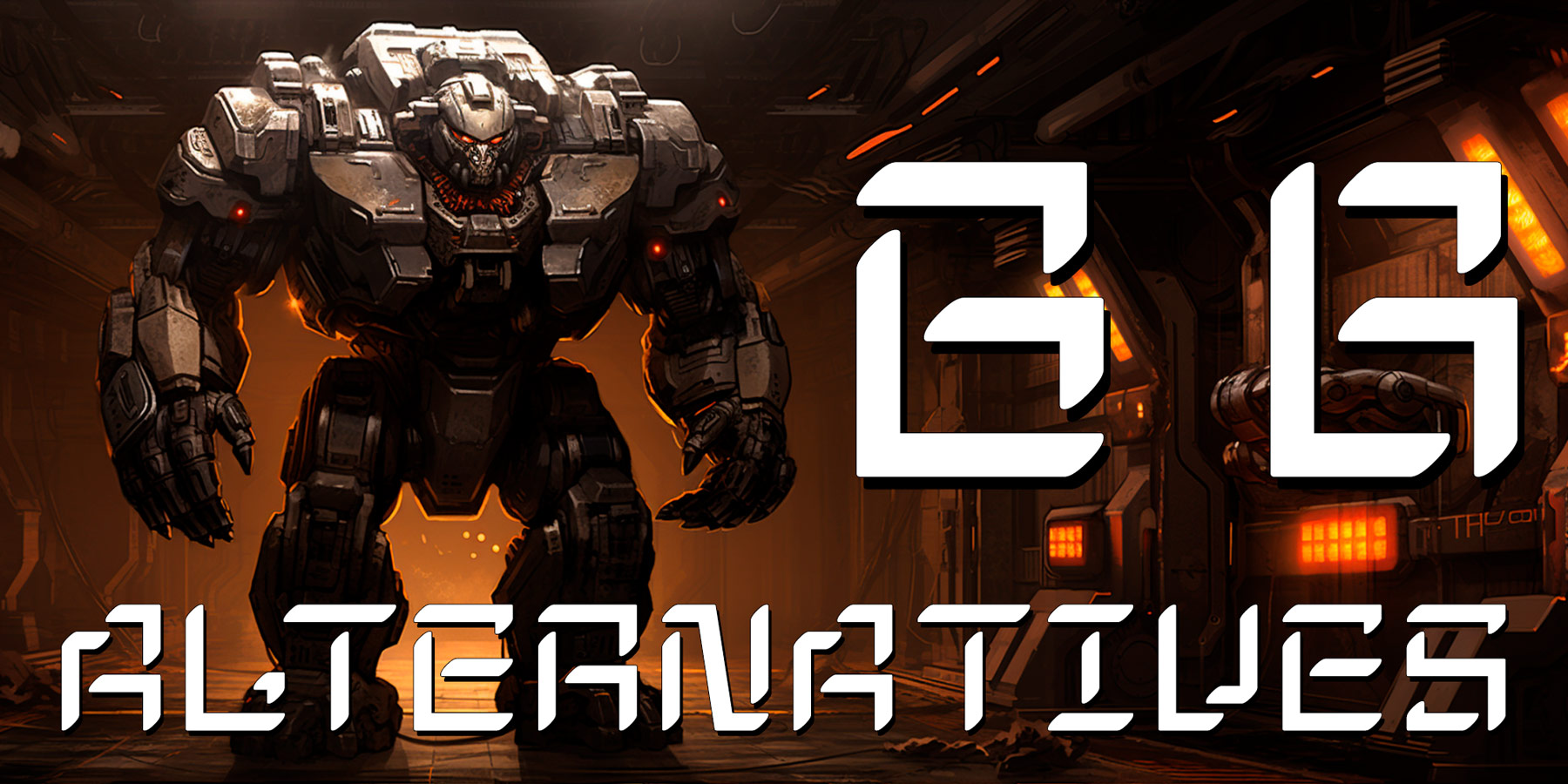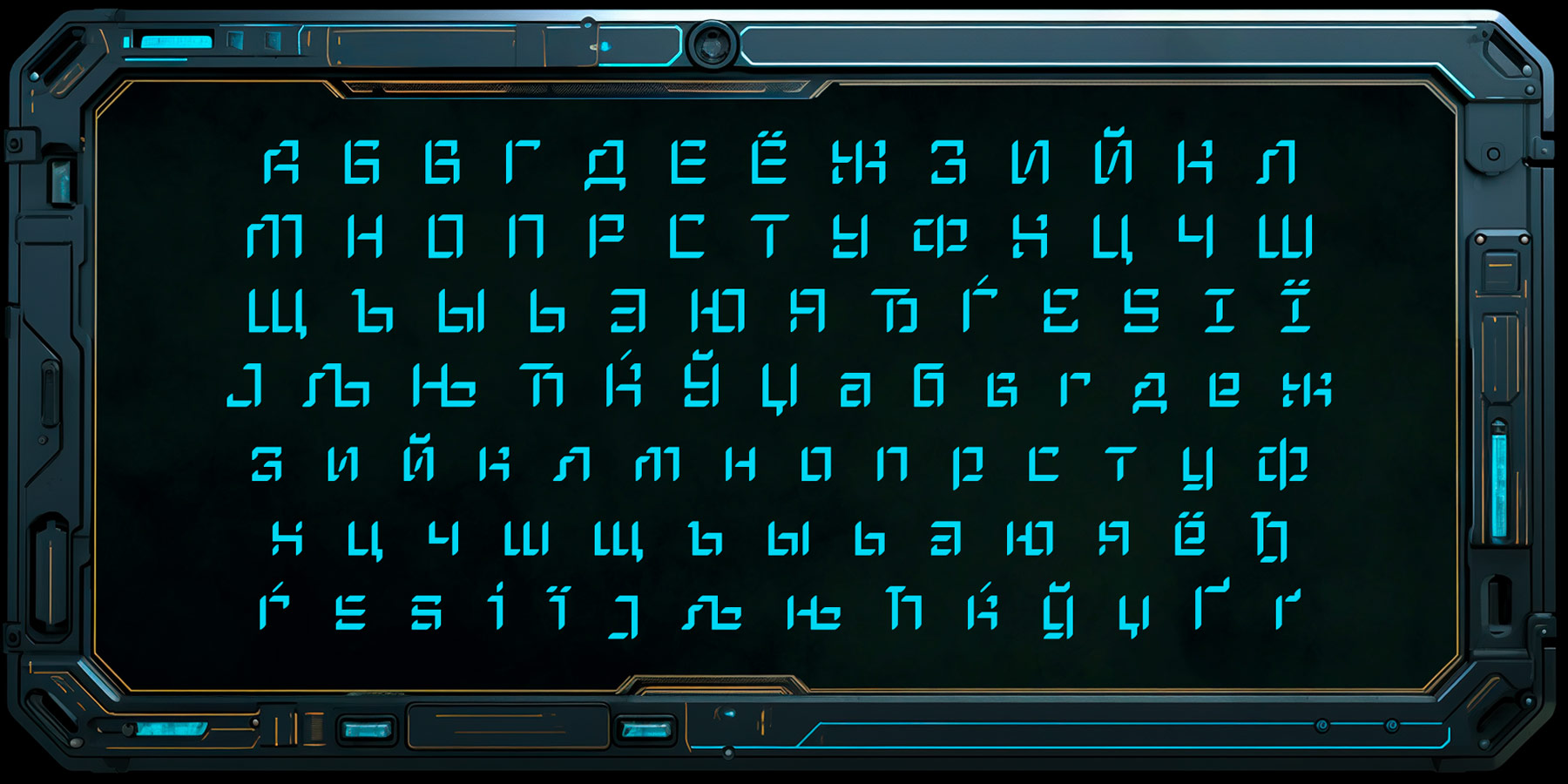
War Bot
Variable robotic font
The appearance of the ‘IA War Bot’ speaks for itself. It is a futuristic stenciled robotic font family that would be suitable for lettering comics, computer games, toy packaging, and the like.
Many of the glyphs have alternatives. The widest set of font files, from Thin Ultra Condensed to Black Ultra Expanded, and the expanded character set (including Cyrillic) will satisfy all design needs. And the most demanding can turn their attention to the variable font.